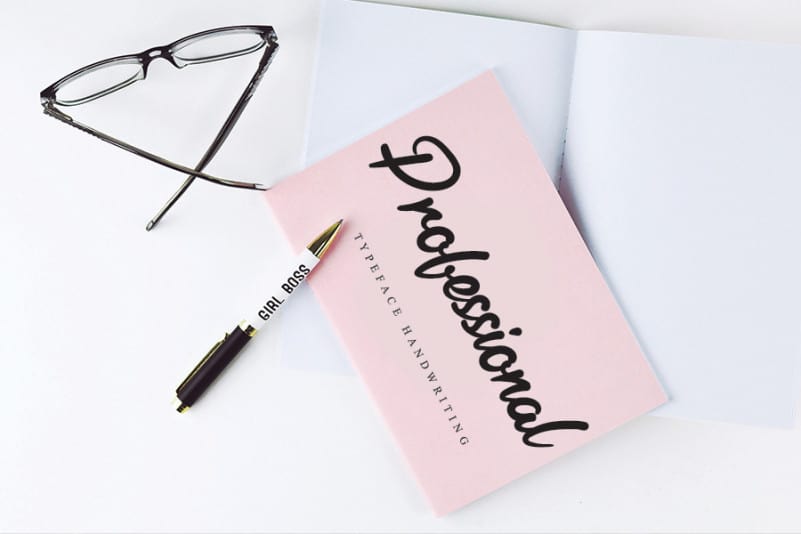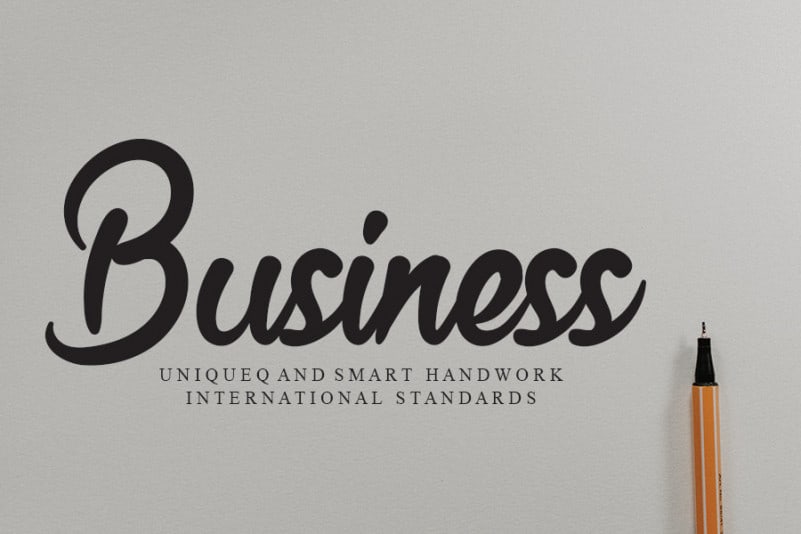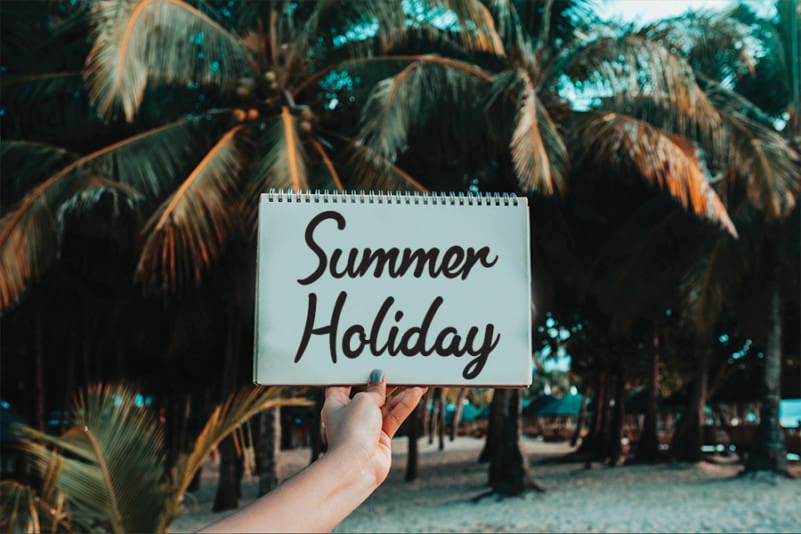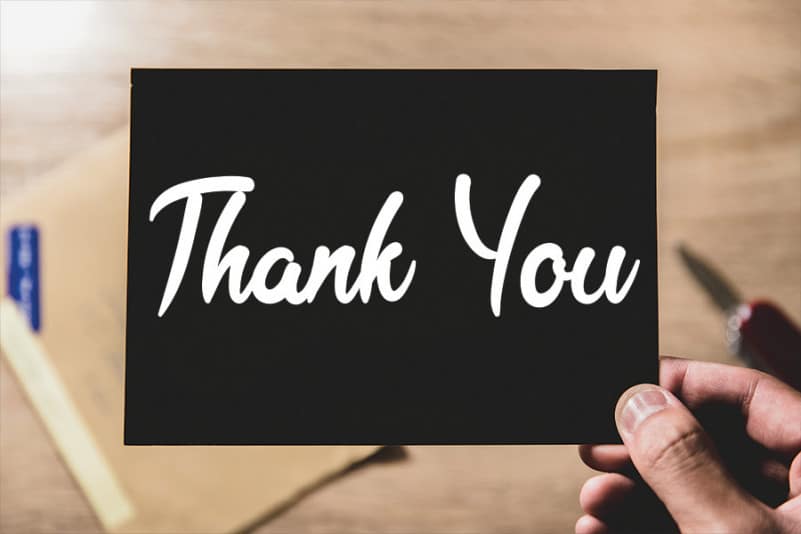
Bellflower Handwritten Font
Bellflower Font is a cute handwritten font. Get inspired with its authentic feel and use it to create gorgeous wedding invitations, beautiful stationary art, eye-catching social media posts, and cute greeting cards.